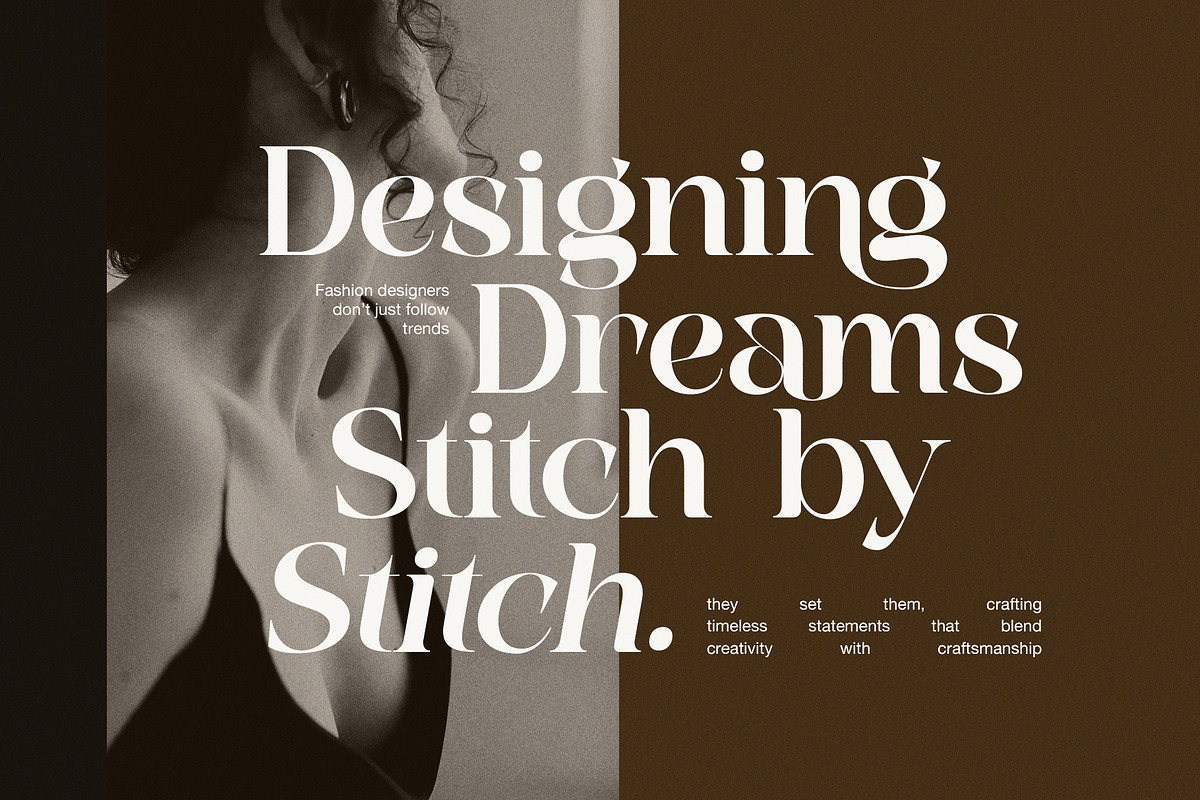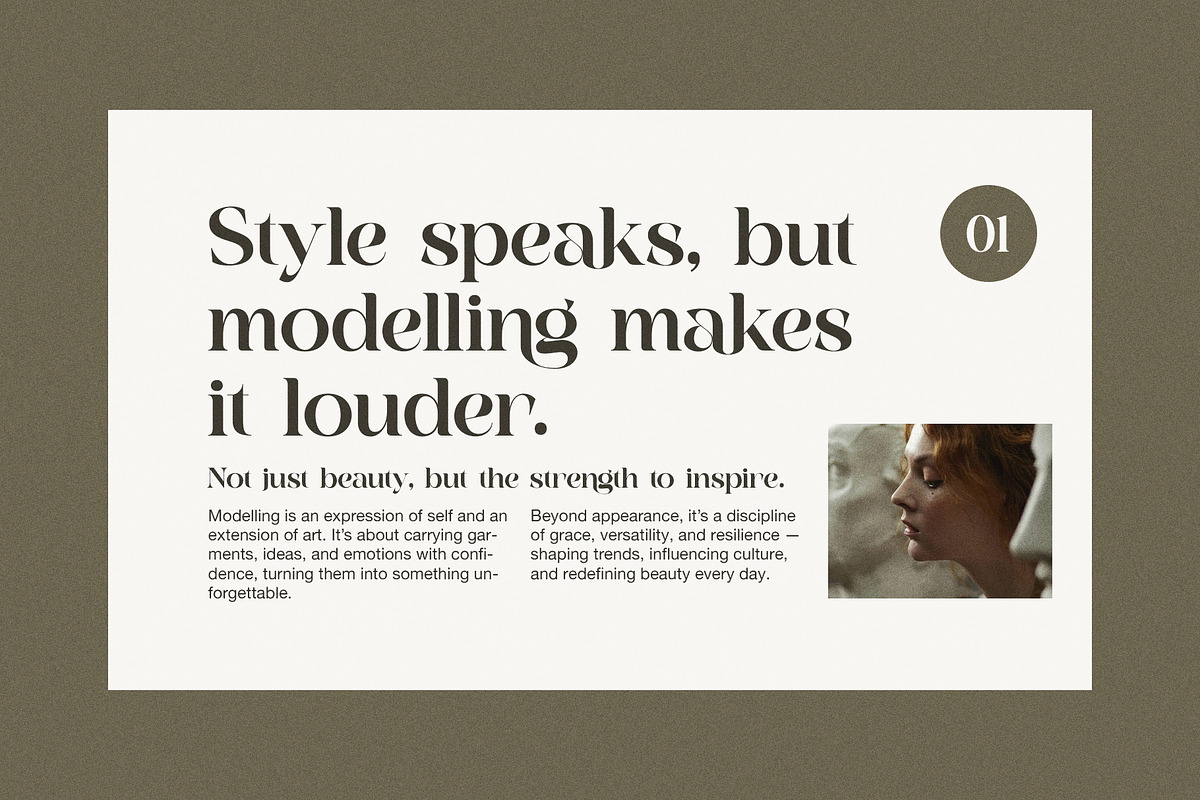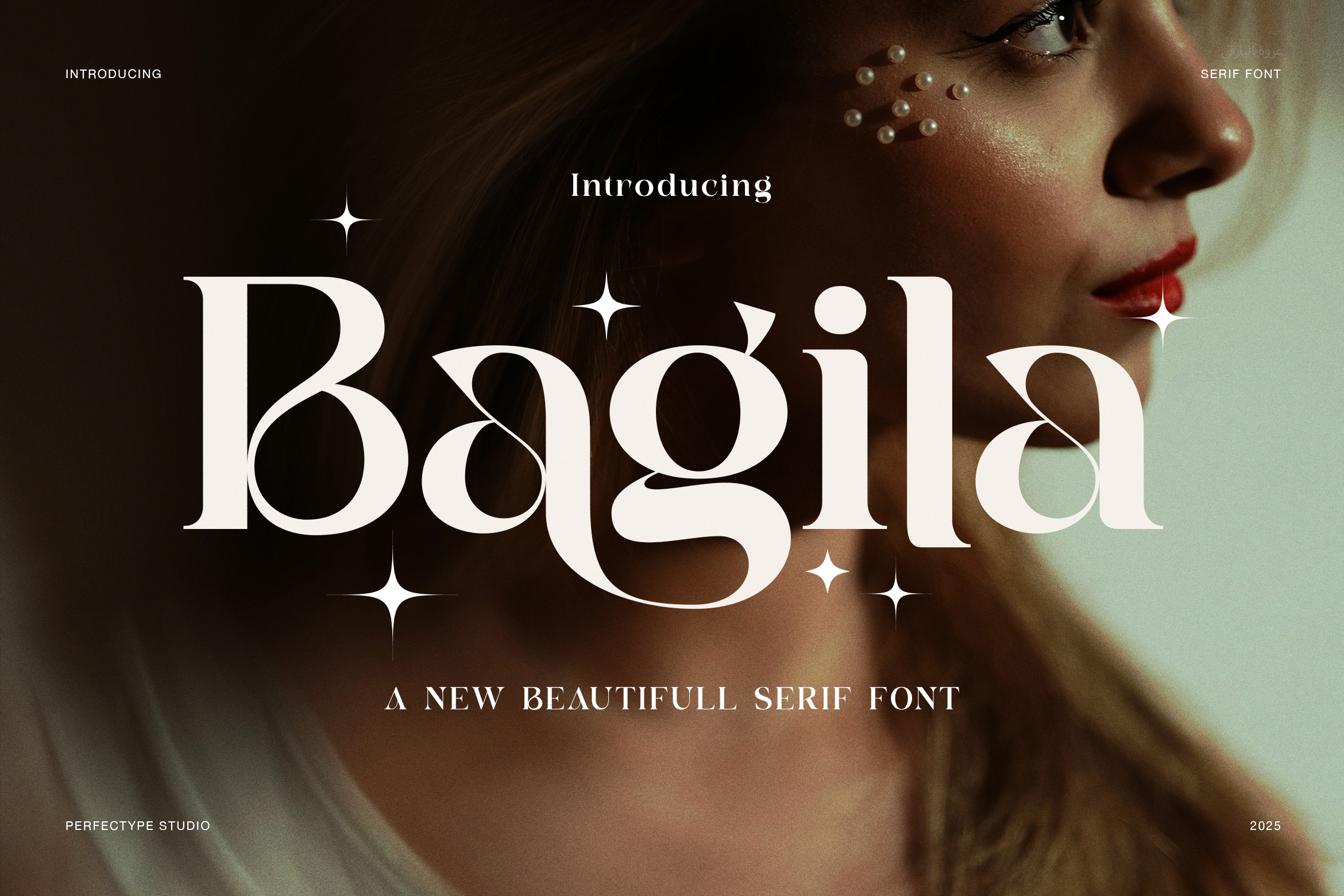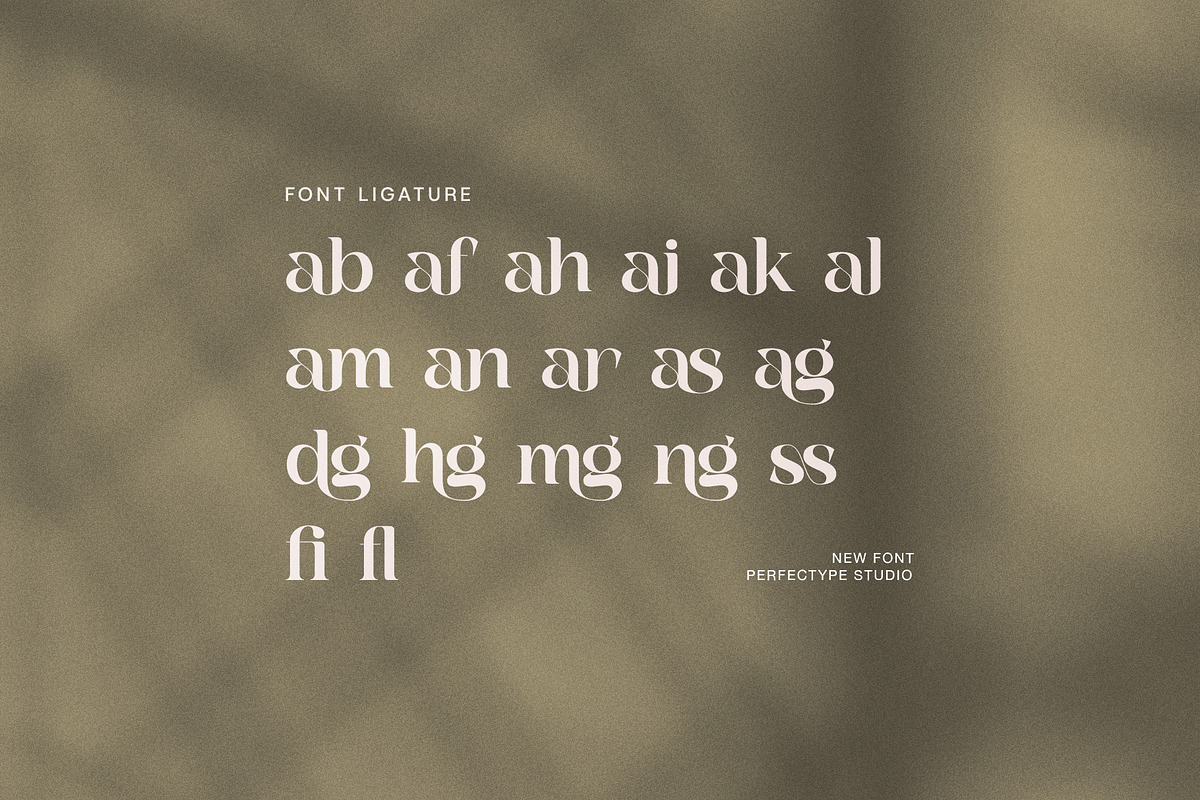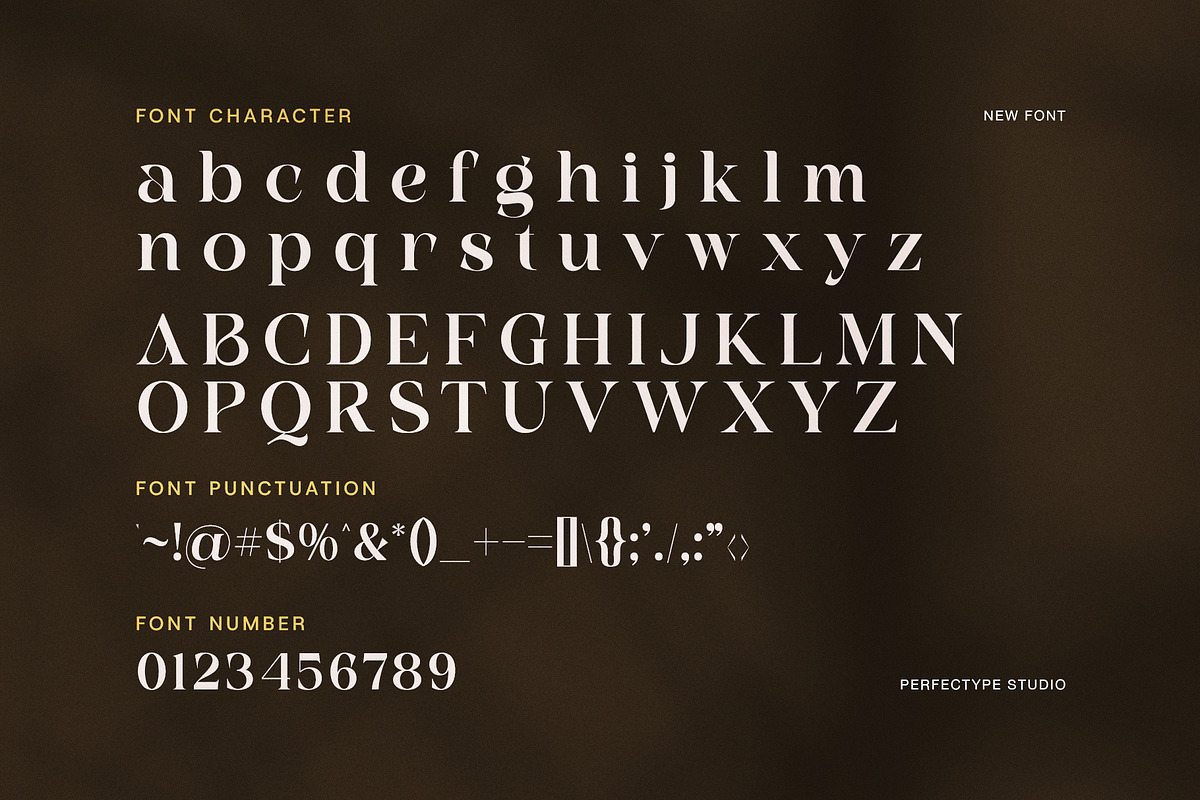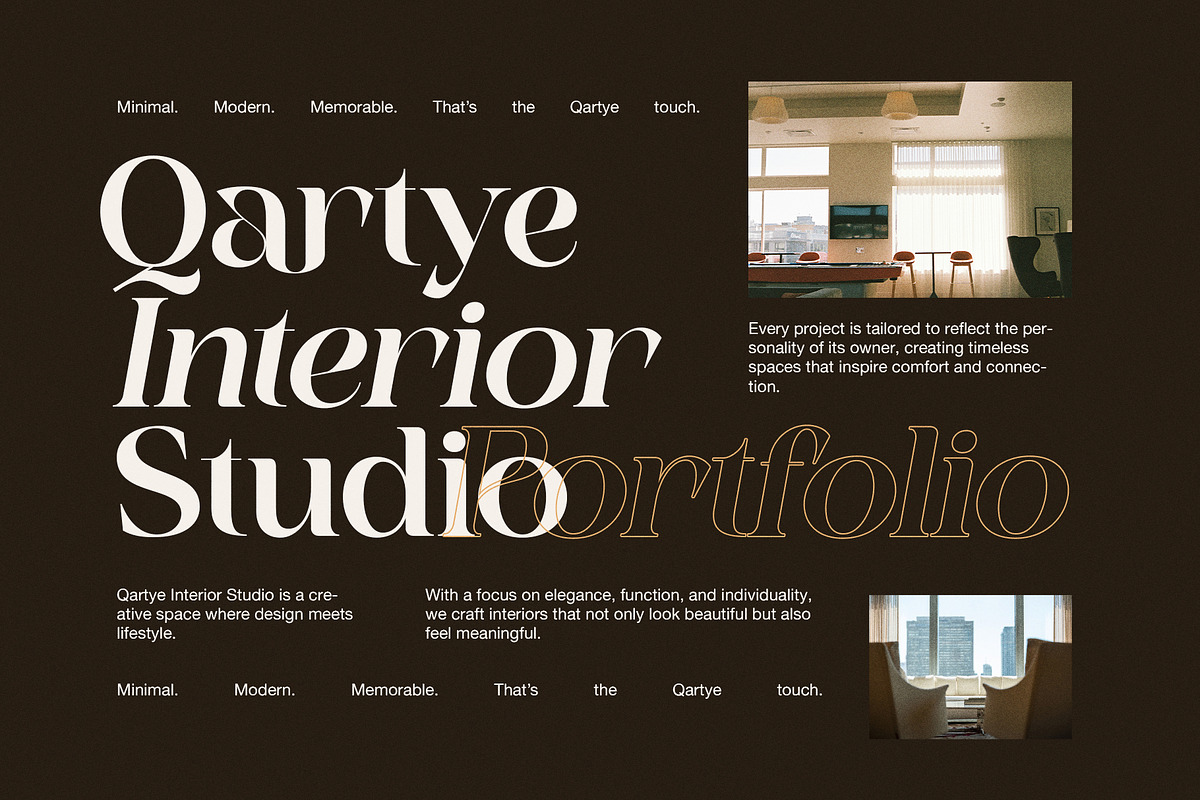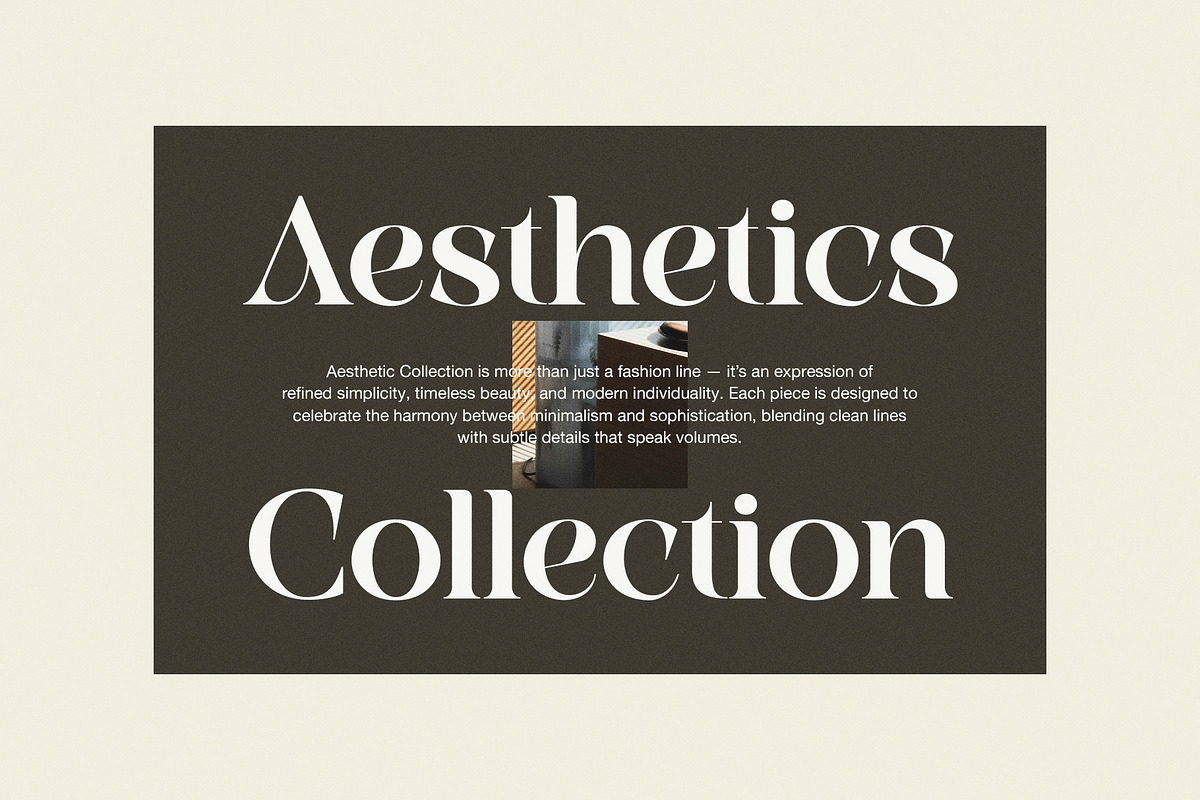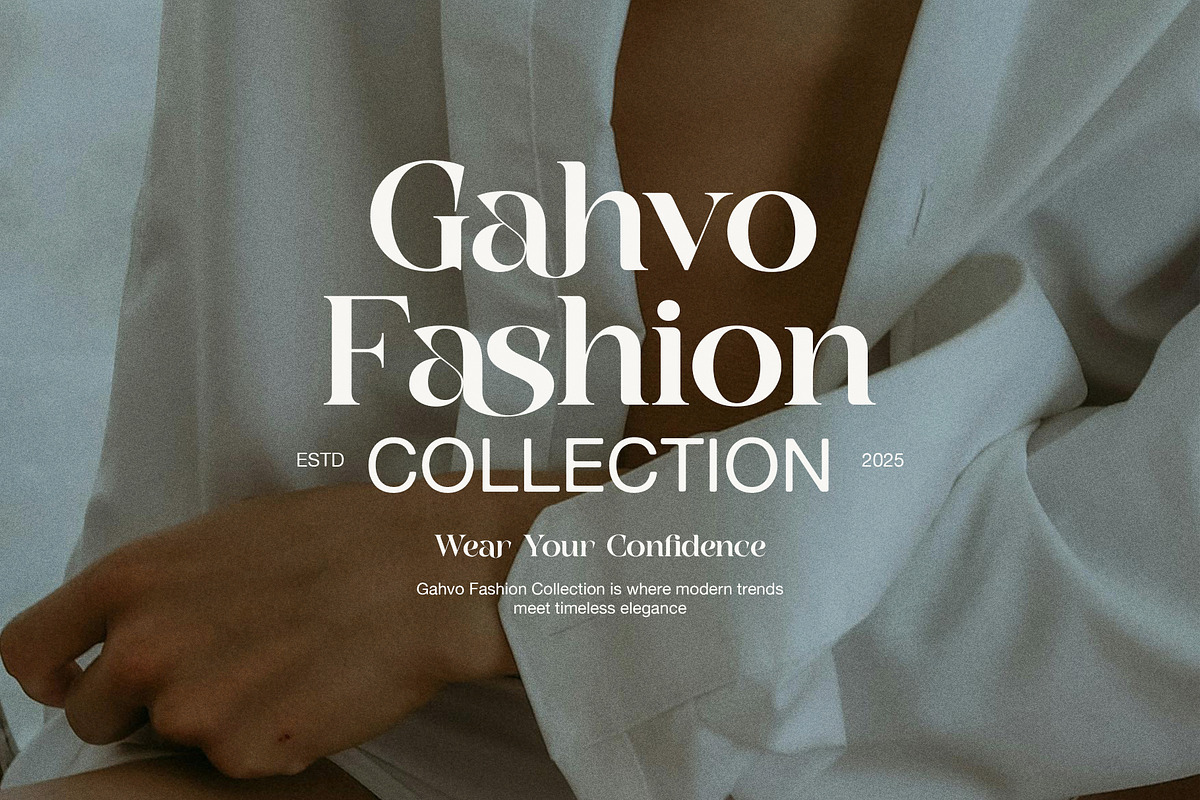
Bagila Elegant Serif Font
Bagila Elegant Serif is a beautifully crafted serif font that merges classic style with modern sophistication. Its refined letter shapes and smooth curves create an elegant yet approachable design. Because of this, it suits a wide range of projects, from luxury branding and editorial layouts to wedding invitations and packaging design.
The shape of Bagila Elegant Serif features well-proportioned letters with gentle serifs that add a timeless touch. Moreover, the balanced contrast between thick and thin strokes enhances readability without losing style. This makes Bagila an excellent choice for both headlines and body text. In addition, its clean and neat structure adapts perfectly to digital and print formats.
Stylistically, Bagila blends traditional serif elegance with a fresh, modern feel. For example, it pairs well with sans serif fonts and script typefaces, providing versatility for layered and creative designs. Furthermore, its classic charm works well in fashion magazines, high-end product branding, and wedding stationery.
When it comes to usage, Bagila Elegant Serif performs well across various media. Whether in magazine articles, business cards, or website headers, it maintains clear legibility and a professional look. Also, it supports multiple languages, allowing your projects to reach a global audience with ease.
Key features of Bagila Elegant Serif include:
Classic serif style with modern refinement
Balanced thick and thin strokes for clear reading
Suitable for headlines and body text
Ideal for branding, editorial, and wedding designs
Excellent for print and digital use
Multilingual support included
By choosing Bagila Elegant Serif, you add timeless elegance and clarity to your designs. This font is more than just letters—it’s a tool to elevate your creative work with style and professionalism.